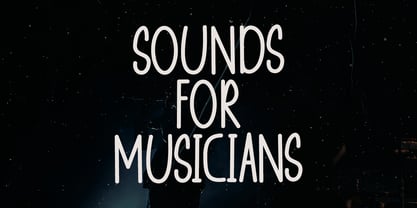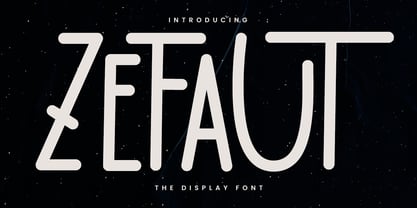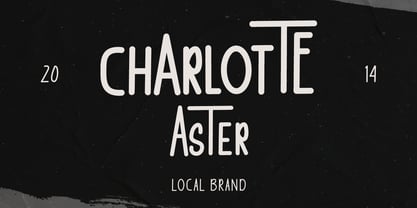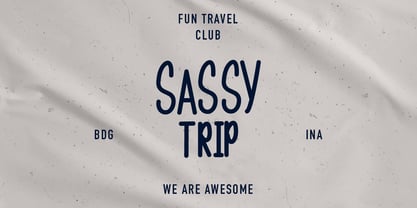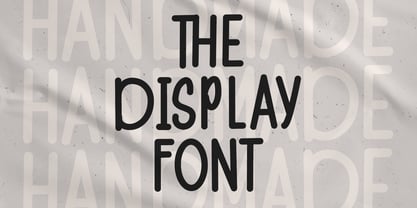
MC Zefaut
by Maulana Creative
The MC Zefaut Font Family was designed by Gilang Maulana and published by Maulana Creative. MC Zefaut contains 1 styles. More about this family
Zefaut font. Fun character with a alternates. To give you an extra creative work, Zefaut font support multilingual language. This font is good for logo design, Social media, Movie Titles, Books Titles, a short text even a long text letter and good for your secondary text font with script or serif. Make a stunning work with Zefaut font.